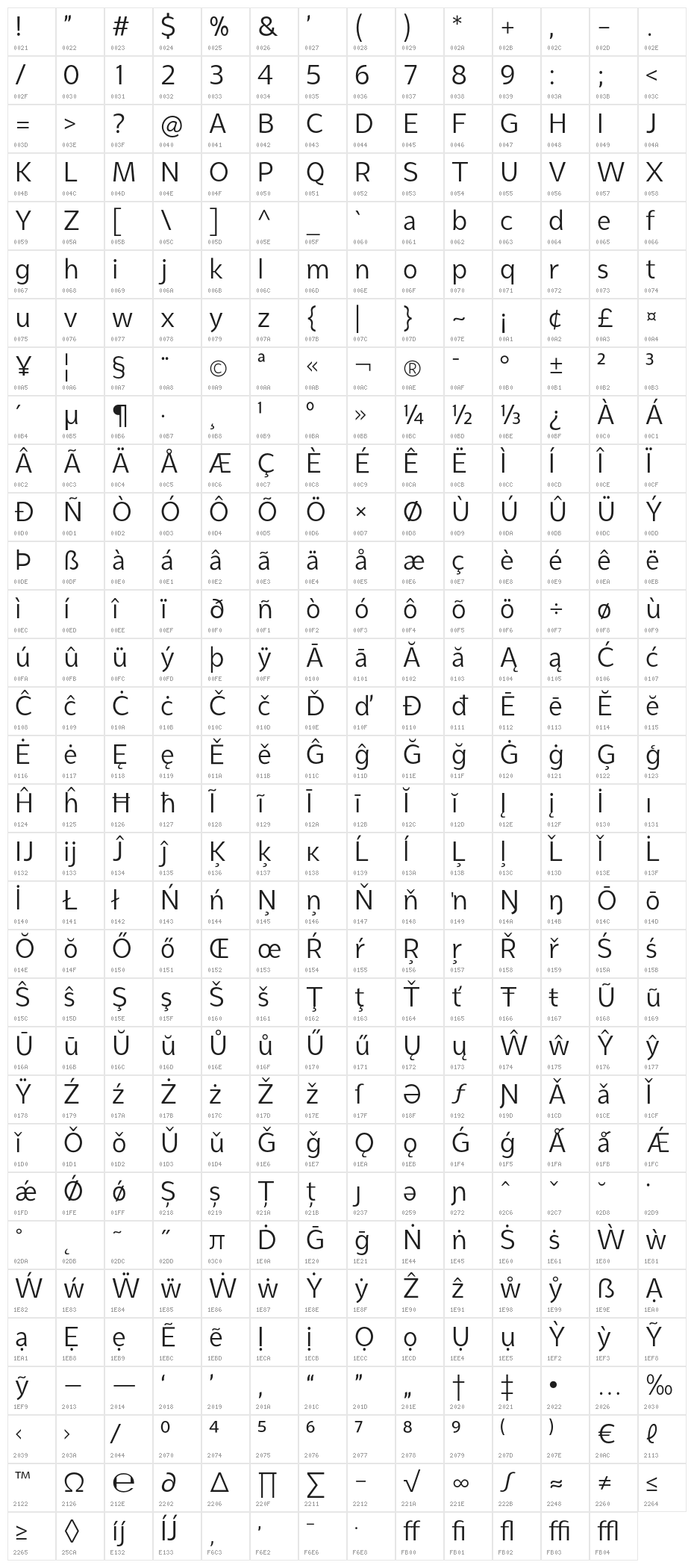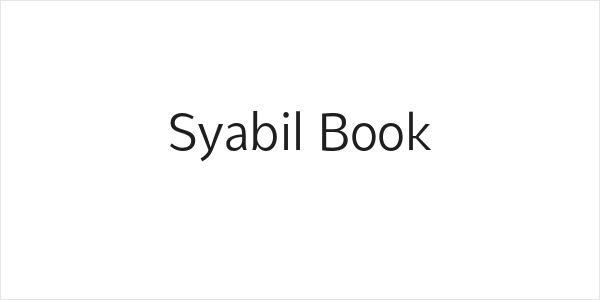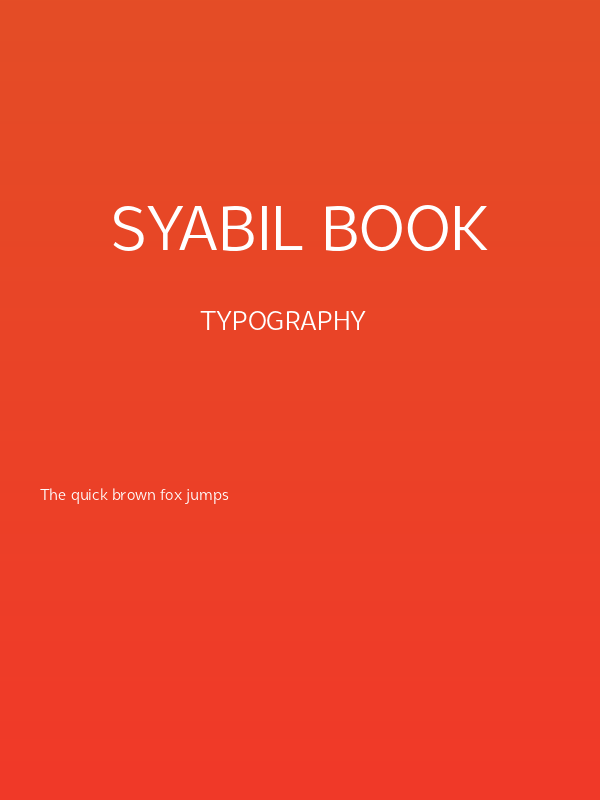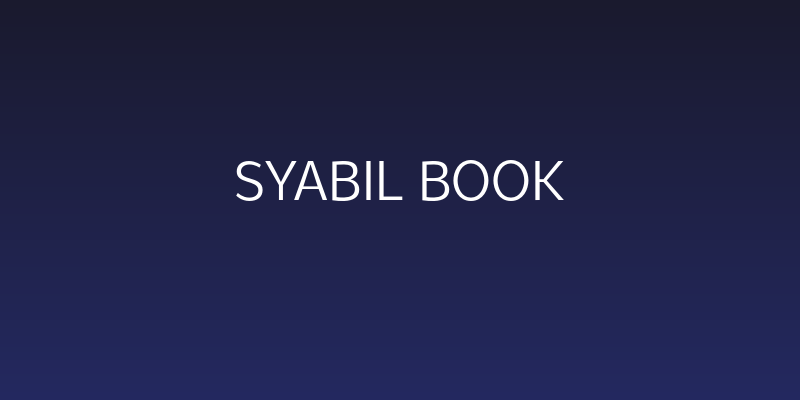
Syabil Book Font
Syabil Book Description
This typeface presents a clean and modern aesthetic with its sans-serif design. The characters are uniformly structured, offering a harmonious balance between simplicity and elegance. The uppercase and lowercase letters are well-proportioned, contributing to its readability. The numerals are straightforward, maintaining the font's minimalist appeal. Special characters are clearly defined, enhancing the font's versatility. Its geometric shapes and consistent line thickness make it suitable for a wide range of applications, from digital interfaces to print media.
| Use Case | Headlines, Body text, Logos |
| Proposed Projects | Ideal for web design, corporate branding, user interfaces, and editorial layouts. |